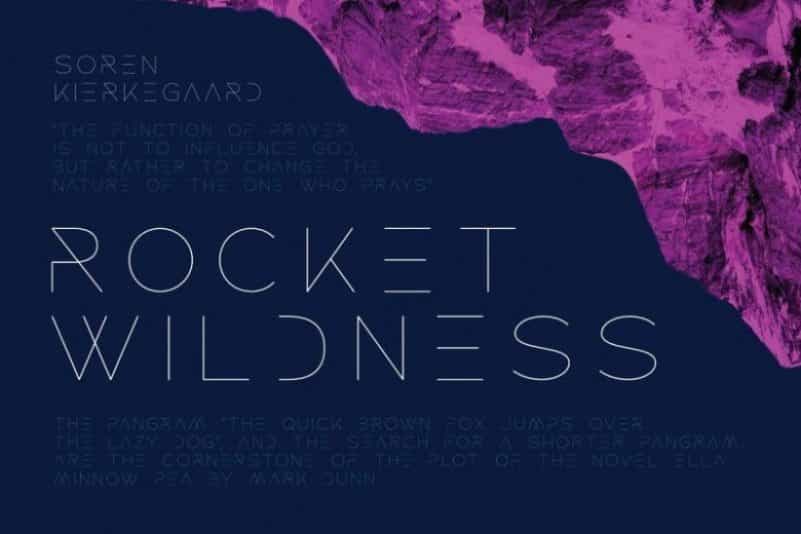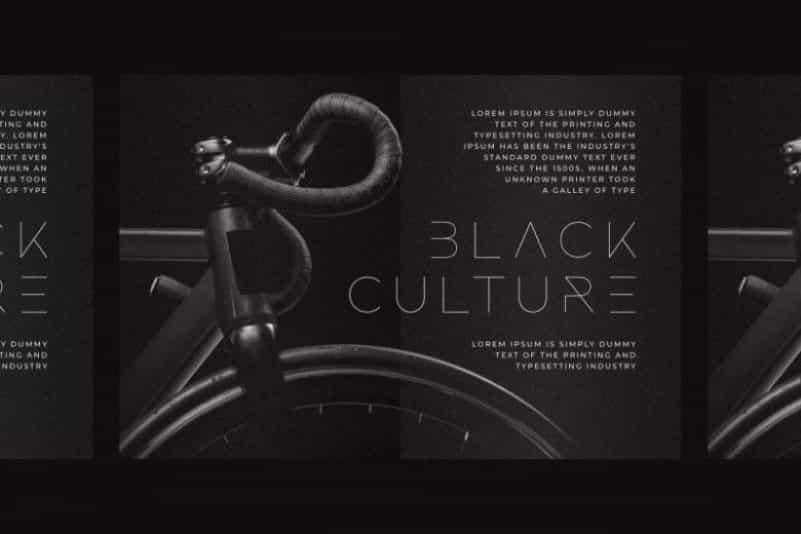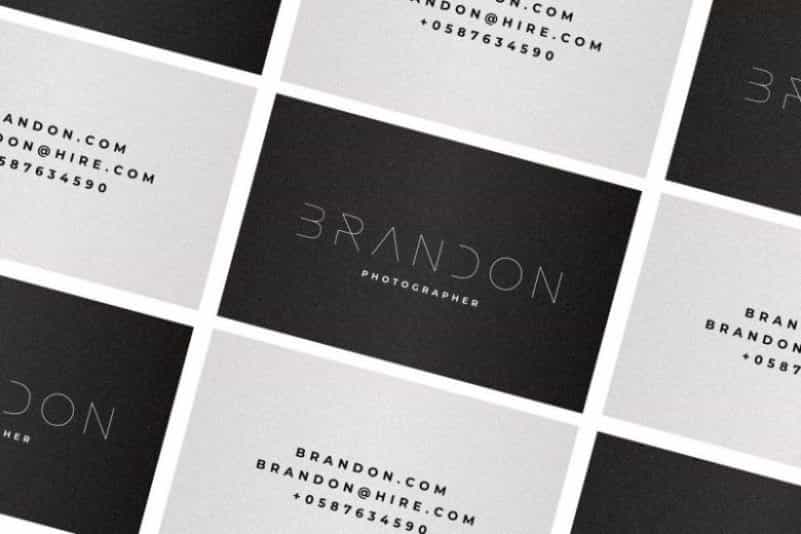
Rocket Wildness Font has symbols and punctuation and unique alternative letters perfect for logos & branding, photography, invitation, watermark, advertisements, product designs, stationery, wedding designs, label & product packaging.